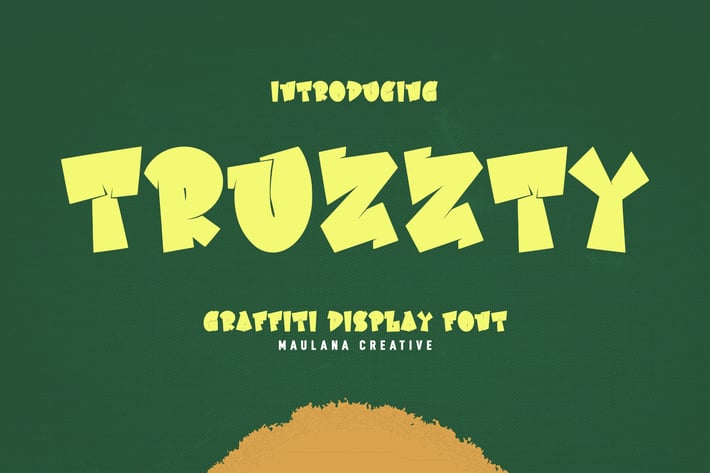
Truzzty Graffiti Display Font
Truzzty graffiti display font. Bold stroke, fun character with a bit of ligatures and alternates. To give you an extra creative work. Truzzty graffiti display font support multilingual more than 100+ language. This font is good for logo design, Social media, Movie Titles, Books Titles, a short text even a long text letter and good for your secondary text font with script or serif. Make a stunning work with Brandon Truzzty graffiti display font.